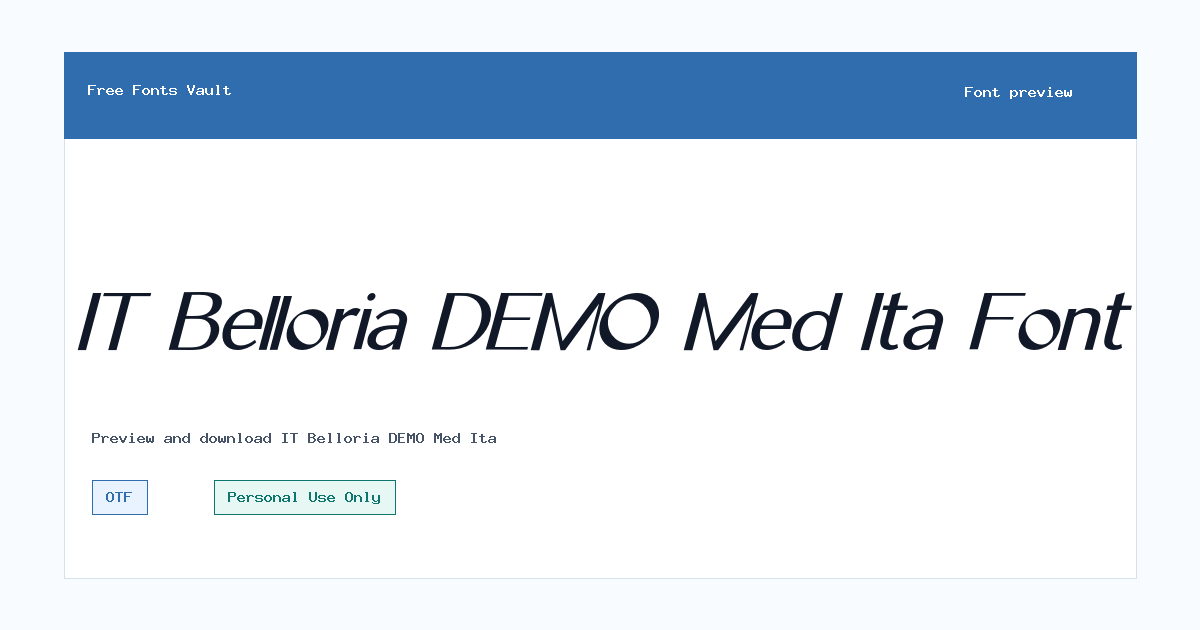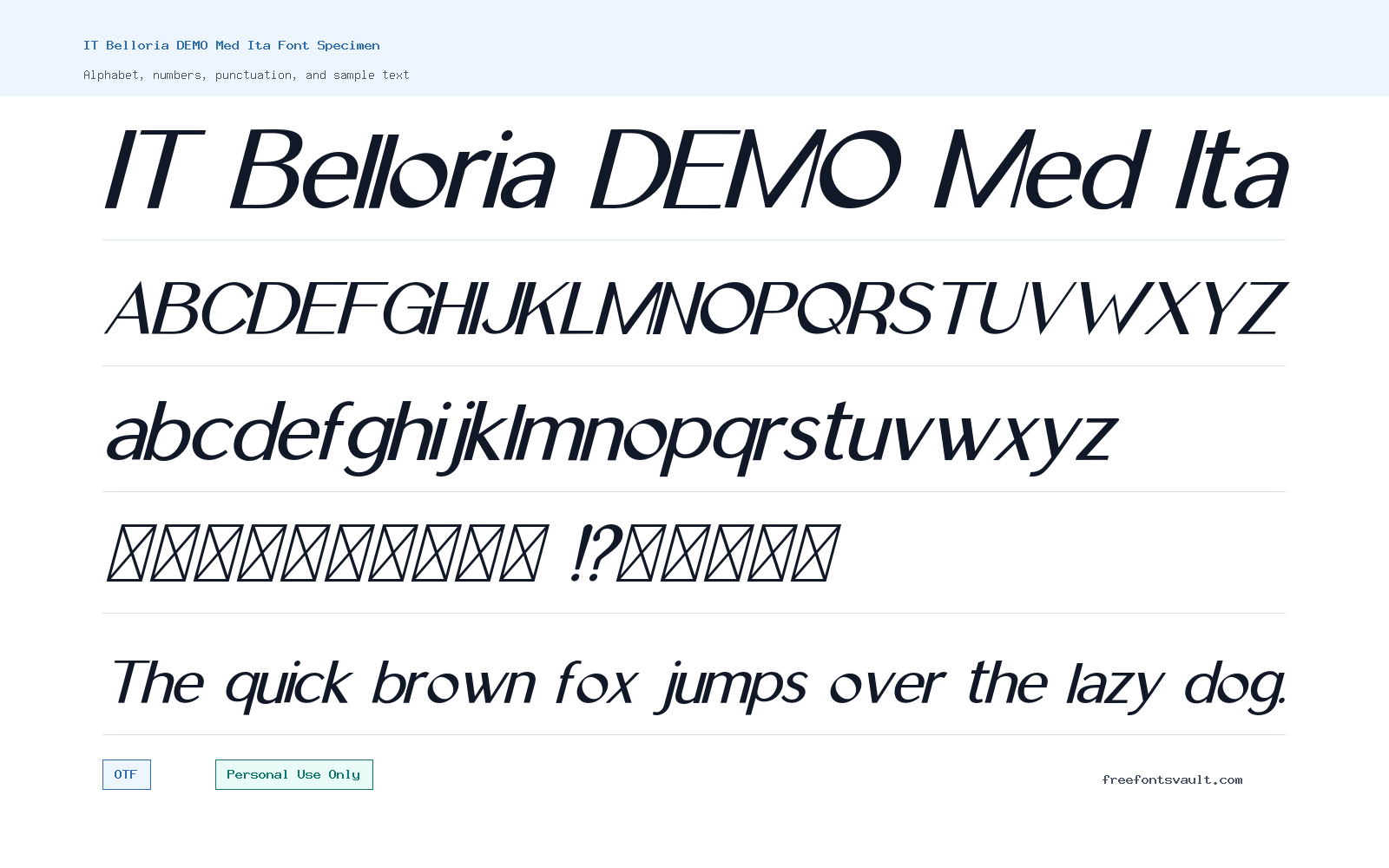
IT Belloria DEMO Med Ita
- Designer Indotype Foundry
- Foundry Indotype Foundry
IT Belloria DEMO Med Ita font.
IT Belloria DEMO Med Ita is a medium-weight italic font from Indotype Foundry, offered in OTF format for personal-use projects and font testing.
About IT Belloria DEMO Med Ita
IT Belloria DEMO Med Ita gives you a slanted medium style that works well when a design needs motion, emphasis, or a more expressive text treatment than an upright font. Because this is an italic cut, it is best judged in real words rather than single letters. Try it in names, short headlines, invitation-style lines, logo drafts, and poster text to see how the angle, spacing, and weight behave together. The 500 weight gives the letters more presence than a light italic, while still keeping a cleaner feel than a heavy display face. That makes it useful for previewing elegant title settings, quote graphics, social posts, and brand mockups where you want a refined italic voice without making the text feel overly loud.
For logo work, IT Belloria DEMO Med Ita can be useful in early concept stages, especially for boutique, editorial, fashion, lifestyle, stationery, beauty, or personal-brand directions. Keep the wording short and check the font at several sizes before committing to a layout. Italic fonts can look graceful in display use, but they may lose clarity when squeezed into small buttons, dense menus, long paragraphs, or narrow mobile spaces. If you are designing posters or web mockups, test the font in both large headings and smaller supporting text. It may work nicely as a highlight style beside a simpler sans serif or a calm serif, but it should not be forced into every line of a design. Use it where the italic shape adds meaning: a title, a signature-like phrase, a featured name, a pull quote, or a secondary heading.
- Medium italic style with a 500 weight, suitable for expressive headings, names, and short display text.
- Slanted letterforms that can add movement and emphasis in logo drafts, posters, invitations, and web mockups.
- Works best in short text settings where spacing, angle, and word shape can be checked carefully.
- Logo drafts and wordmark experiments for personal projects
- Poster titles, quote graphics, and social media artwork
- Invitation headings, name treatments, and editorial-style layouts
- Website mockups where an italic accent font is needed
- Pairing tests with neutral body fonts in design concepts
What style is this font?
IT Belloria DEMO Med Ita is listed as an italic font with a 500 medium weight.
What kind of designs suit IT Belloria DEMO Med Ita?
It is best suited to short, expressive text such as titles, names, quotes, poster headings, invitation lines, and accent typography in web or branding mockups.
Is it good for body text?
It is better for short display use than long paragraphs. Italic fonts can become tiring or harder to read when used for dense text, especially at small sizes.
What should I pair it with?
Pair it with a cleaner, more neutral font for body copy and interface text. Let IT Belloria DEMO Med Ita act as the accent style for headings, names, or highlighted phrases.